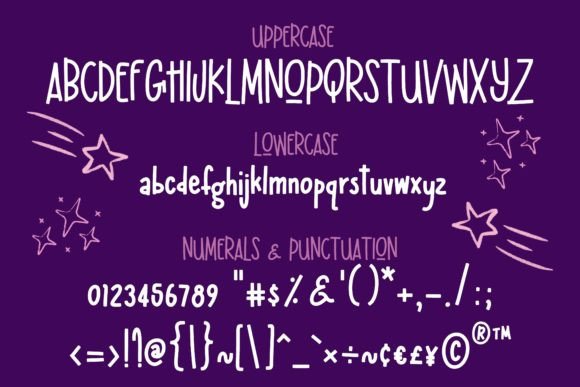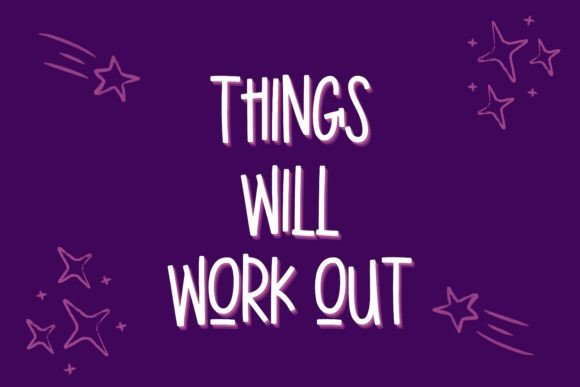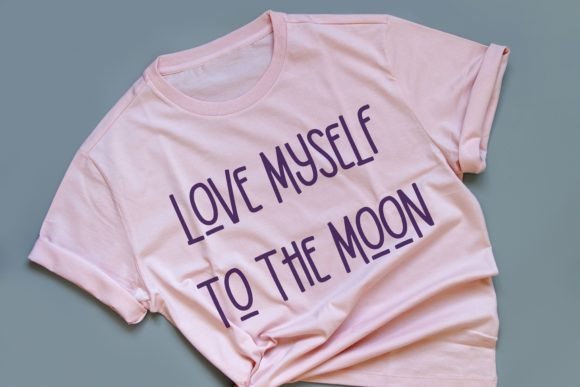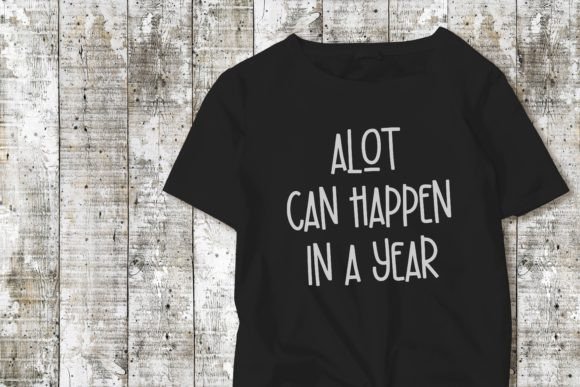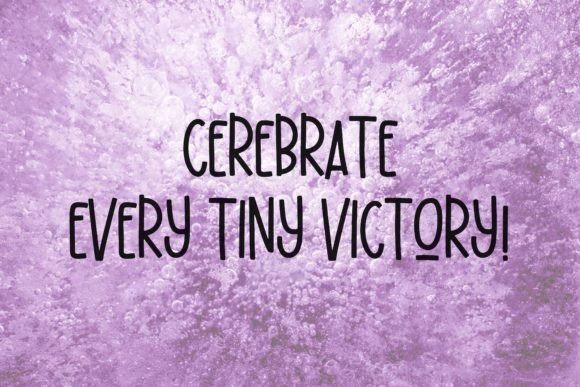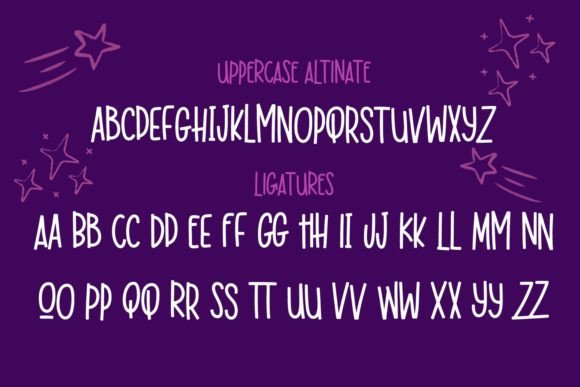
Introducing Charlotte Font: The Ultimate Handwritten Font for Creative Projects
Are you a designer, crafter, or creative enthusiast looking for a font that can add a touch of personality to your projects? Look no further than Charlotte Font, a beautiful, modern, and friendly handwritten font that’s perfect for creating quotes, logos, and any lettering product. In this article, we’ll dive into the features and benefits of Charlotte Font, and explore how it can elevate your creative ideas.
What Makes Charlotte Font Special?
Charlotte Font is a stunning handwritten font that’s designed to make your creative projects stand out. Here are some of its key features:
- Cute and Modern Design: Charlotte Font boasts a fresh and modern design that’s both cute and elegant. Its unique lettering style is perfect for creating visually appealing quotes, logos, and branding materials.
- Friendly and Approachable: The font has a friendly and approachable feel to it, making it ideal for projects that require a personal touch.
- PUA Encoded: Charlotte Font is PUA (Private Use Area) encoded, which means you can easily access all of the glyphs and swashes. This feature makes it easy to customize your text and add a personal touch to your projects.
Charlotte Font is a versatile font that’s perfect for a wide range of creative projects, including:
- Quote Design: Create stunning quote designs for social media, blogs, or print materials using Charlotte Font.
- Logo Design: Use Charlotte Font to create unique and memorable logos for your brand or business.
- Lettering Projects: Add a personal touch to your lettering projects, such as hand-lettered cards, invitations, or posters.
- Branding and Packaging: Use Charlotte Font to create consistent branding and packaging materials that reflect your brand’s personality.
Benefits of Using Charlotte Font
By using Charlotte Font, you can:
- Save Time: With its PUA encoding, you can easily access all of the glyphs and swashes, saving you time and effort in your design process.
- Stand Out: Charlotte Font’s unique design will help your creative projects stand out from the crowd and grab attention.
- Add a Personal Touch: The font’s friendly and approachable feel makes it easy to add a personal touch to your projects and connect with your audience.
Tips for Using Charlotte Font
Here are some tips for getting the most out of Charlotte Font:
- Experiment with Glyphs and Swashes: Take advantage of the font’s PUA encoding to experiment with different glyphs and swashes and add visual interest to your text.
- Pair with Other Fonts: Try pairing Charlotte Font with other fonts to create a unique and visually appealing combination.
- Use for Display Text: Use Charlotte Font for display text, such as headings and titles, to add a touch of personality to your design.
Charlotte Font is a beautiful, modern, and friendly handwritten font that’s perfect for designers, crafters, and creative enthusiasts. With its PUA encoding, cute and modern design, and friendly feel, it’s ideal for creating quotes, logos, and any lettering product. By using Charlotte Font, you can add a personal touch to your projects, stand out from the crowd, and save time in your design process. So why wait? Try Charlotte Font today and take your creative projects to the next level!